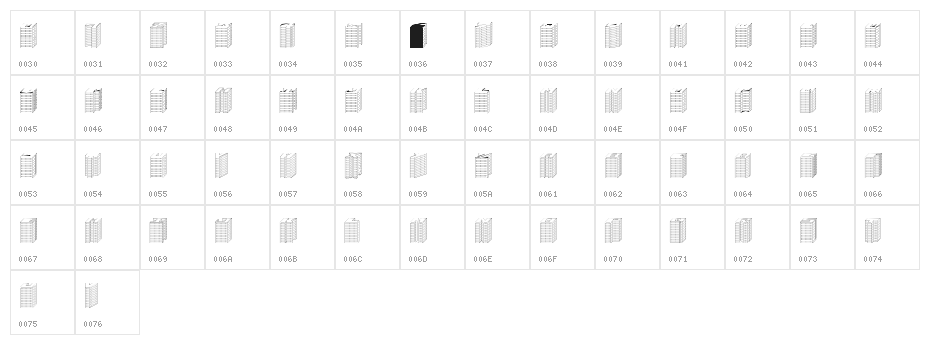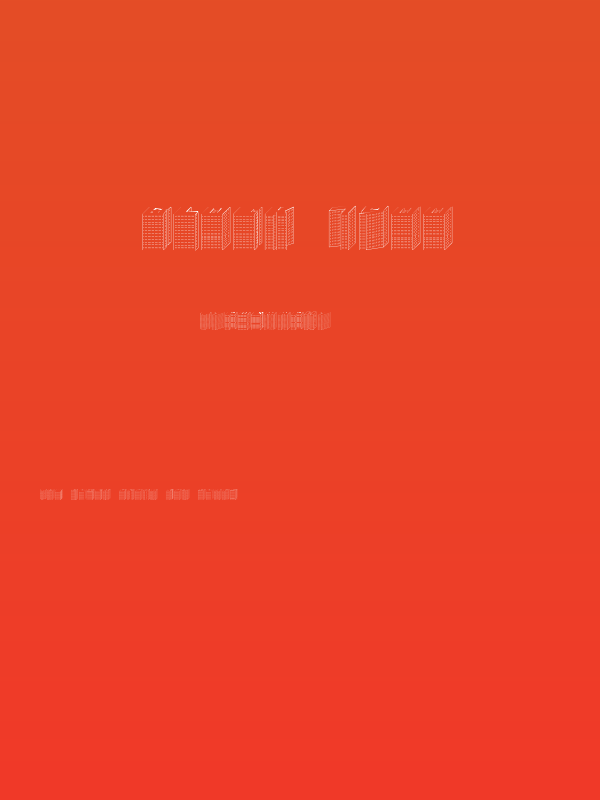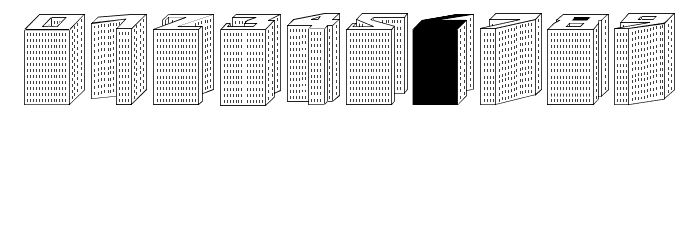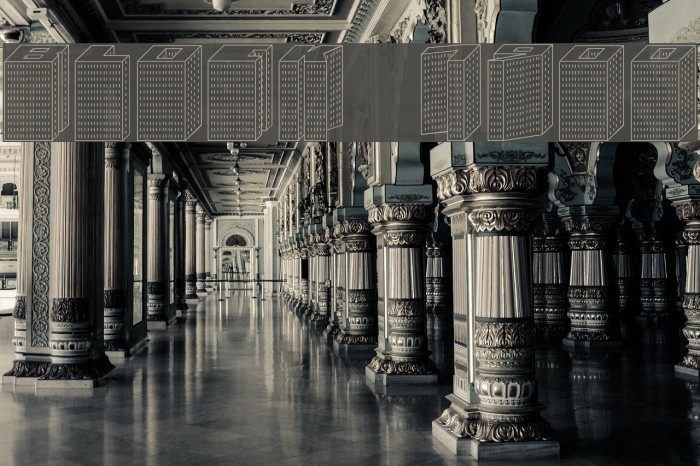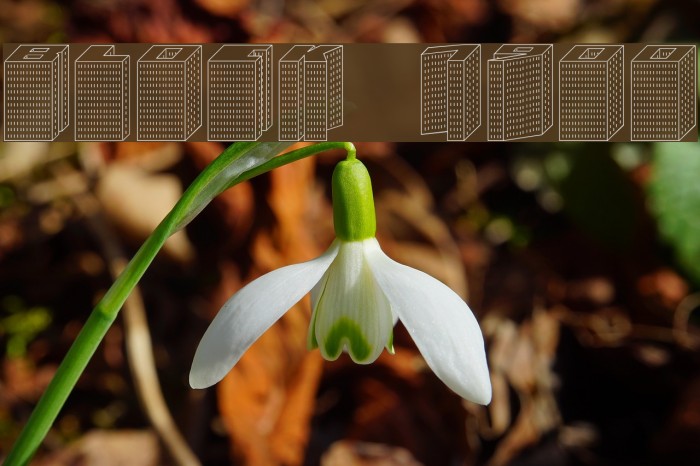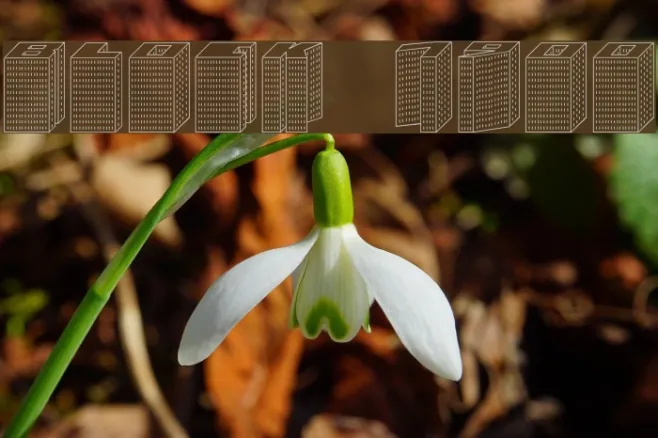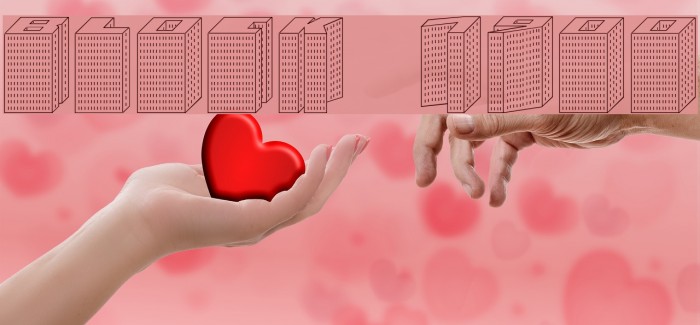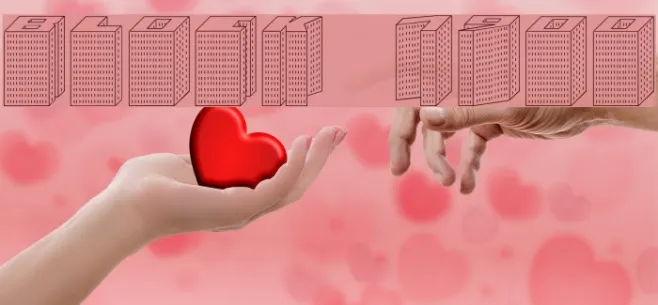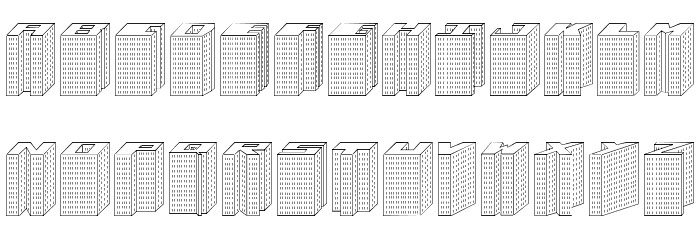
Block 1900 Font
Block 1900 Description
This font features a unique and creative design where each character is represented as a three-dimensional building block. The letters and numbers are depicted as structures with windows and architectural details, giving a playful and imaginative feel. The design is consistent across all characters, maintaining a uniform blocky appearance. The font's style is highly decorative, making it suitable for projects that require a bold and eye-catching aesthetic. The characters are evenly spaced, and the overall look is modern and innovative, perfect for creative and artistic uses.
| Overall Style | Modern, Decorative |
| Use Case | Logos, Headlines, Creative projects |
| Proposed Projects | Ideal for architectural-themed designs, creative posters, children's books, and playful branding projects. |